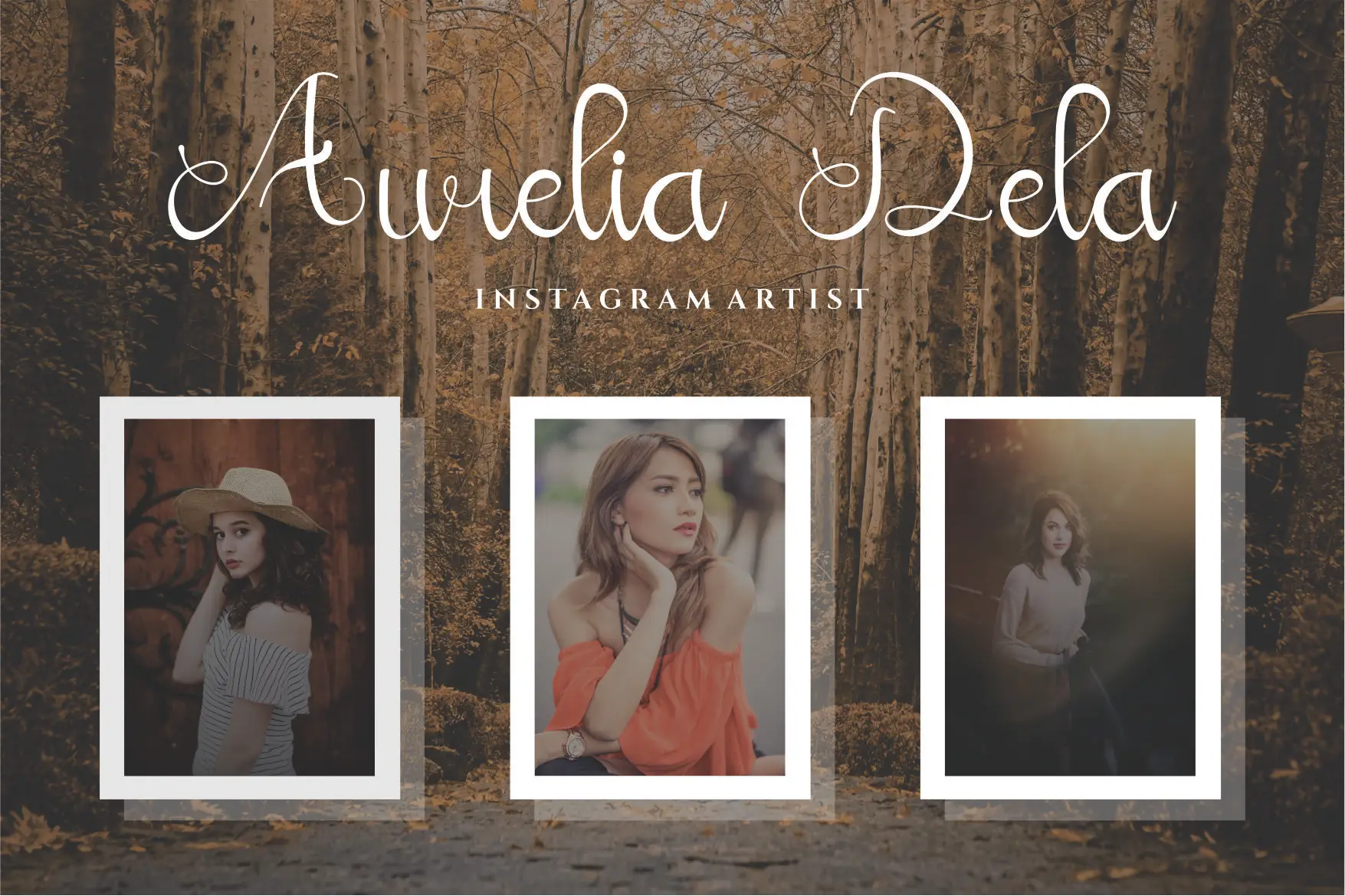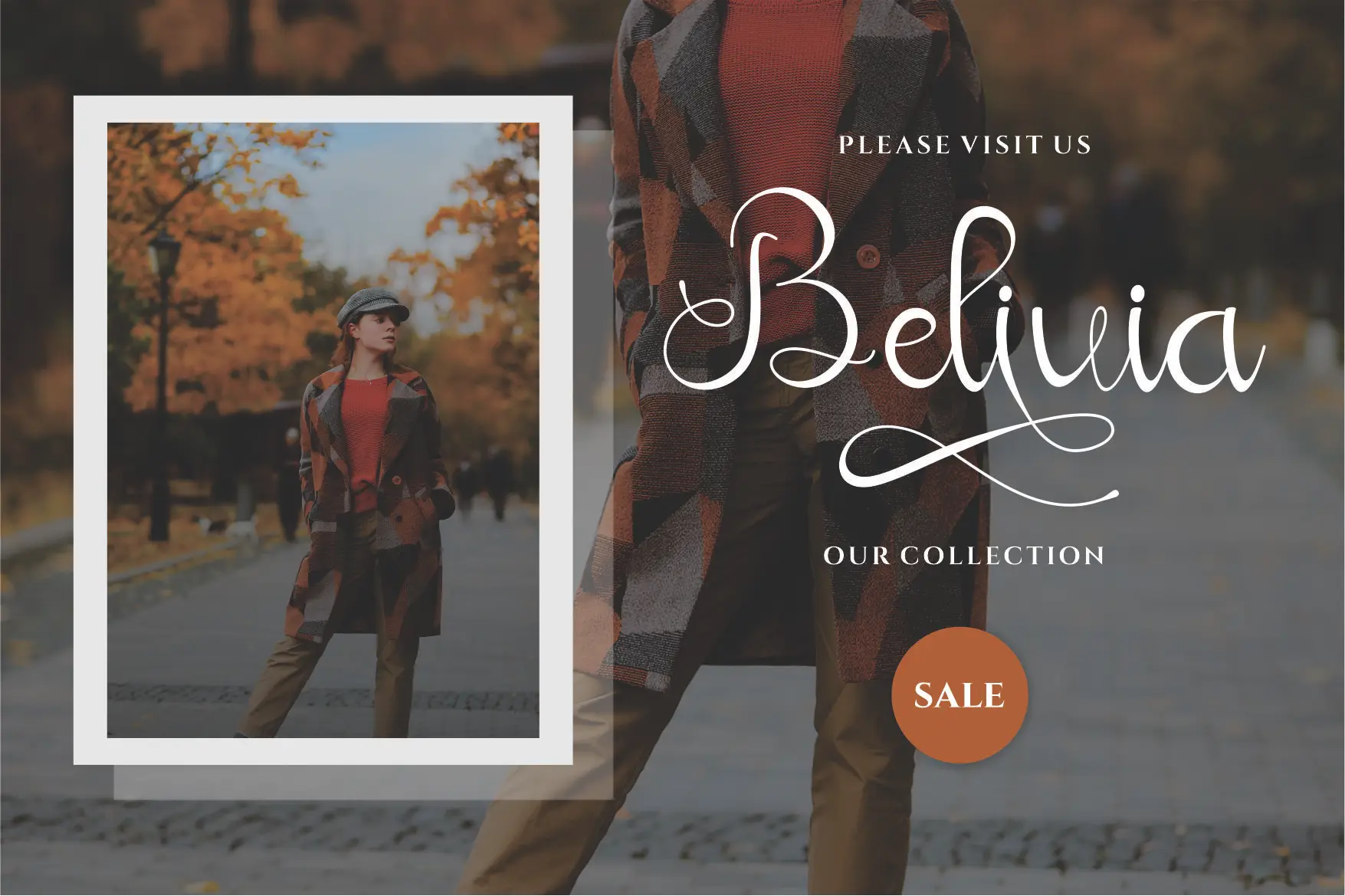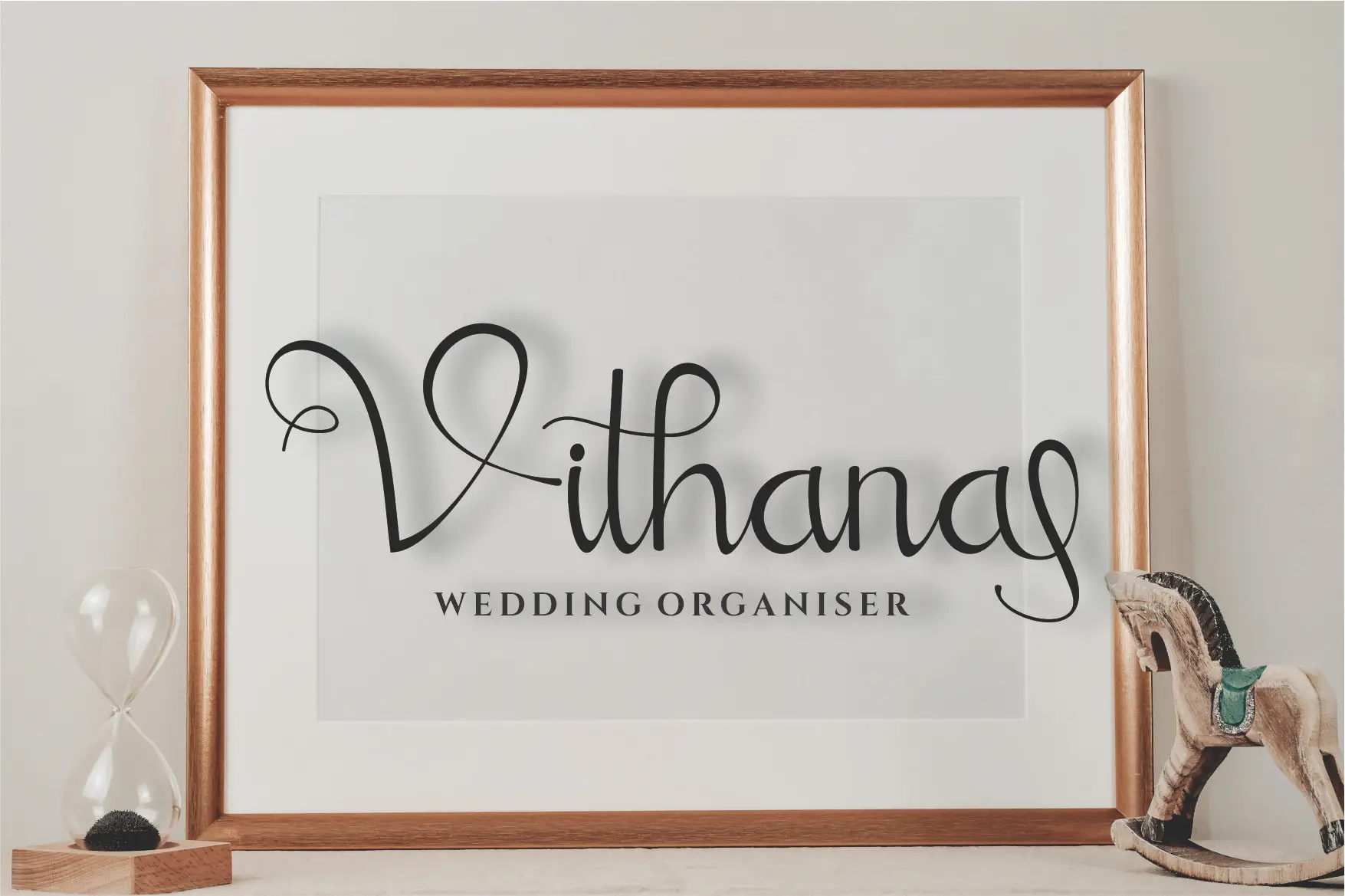
The Berlin Calligraphy Font is a beautifully crafted typeface that captures the elegance of traditional calligraphy. With its flowing lines and intricate details, this font is perfect for adding a touch of sophistication to your projects.
- Stylish calligraphic design
- Supports multilingual characters
- Easy to read at various sizes
- Weights: Regular, Bold
- Ideal for branding, logos, and invitations
- Great for web design and print materials
- Use in UI elements for a refined look